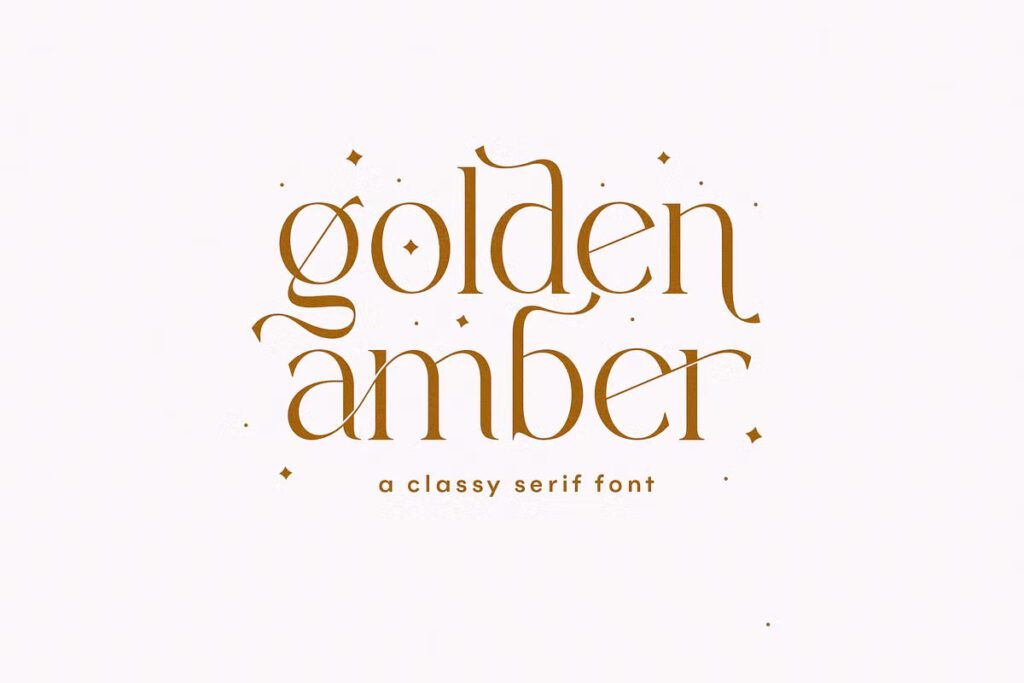
Golden Amber: A Classy Serif Font for Standout Designs
Looking for a modern serif font that adds a touch of class and sophistication to your projects? Golden Amber is the perfect choice. This unique and versatile serif font strikes the right balance between elegance and character, making it ideal for a variety of design applications. Whether you’re working on branding, logos, magazines, or craft projects, Golden Amber is designed to help your creations stand out.
Why Choose Golden Amber?
Golden Amber is a classy serif font that brings just enough flair to any design, making it both modern and timeless. Its elegant design and versatility make it a go-to option for everything from professional branding to fun, creative projects like SVG designs and t-shirts. With alternative glyphs embedded in the font file, you have additional creative flexibility to customize your designs in programs like Photoshop, Illustrator, and others.
Key Features of Golden Amber:
Elegant and Modern Serif Design: Perfect for creating eye-catching logos, branding materials, and editorial content.
Alternative Glyphs: Letters with tails for a unique, customized look (accessible through character map panels in design programs).
Versatility: Ideal for multiple design projects including branding, logos, magazines, quotes, and even craft projects like t-shirts or SVG designs.
Best Uses for Golden Amber:
Branding and Logos: Create classy, professional logos that leave a lasting impression.
Magazines and Editorials: Ideal for headlines, feature articles, or any text that needs an elegant touch.
Craft Projects and Quotes: Great for creating standout SVG designs, custom t-shirts, or quotes that pop.
Invitations and Event Designs: Perfect for creating stylish, memorable event invitations or marketing materials.